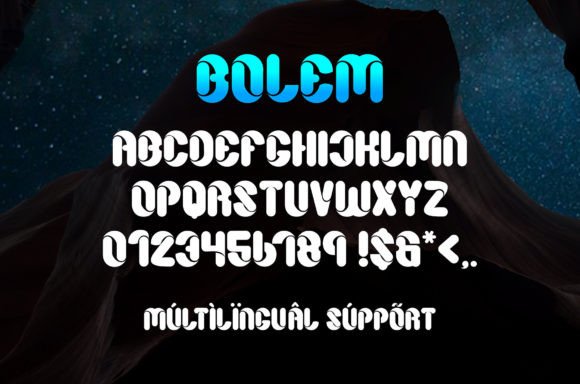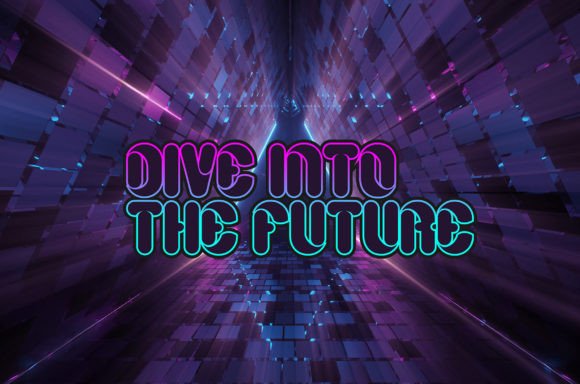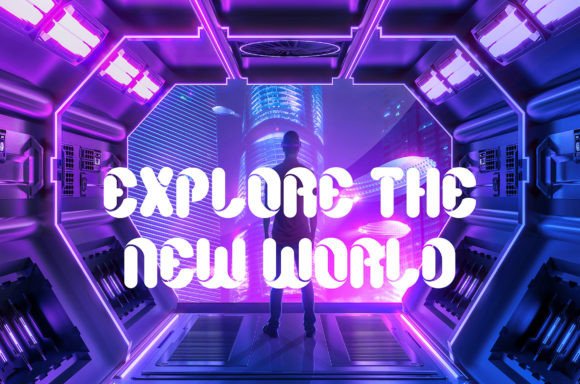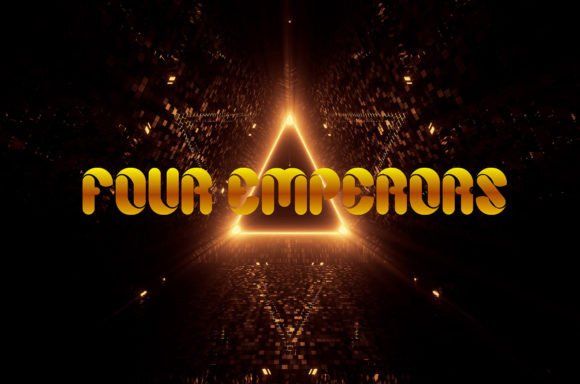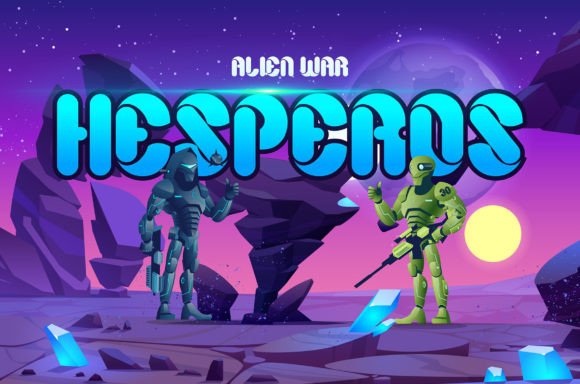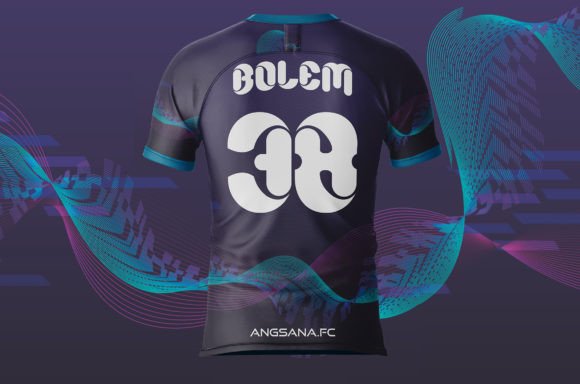
Bolem Font: Elevate Your Designs with a Modern and Futuristic Display Font
In the world of typography, fonts play a crucial role in conveying messages, expressing emotions, and creating visual identities. For designers and crafters, having access to a diverse library of high-quality fonts is essential to stay creative and produce stunning work. One such font that has been making waves in the design community is Bolem, a modern and futuristic display font that is poised to elevate any creation.
What is Bolem Font?
Bolem is a sleek and contemporary display font designed to make a statement. Its unique blend of modernity and futurism makes it an excellent addition to any font library. With its clean lines, geometric shapes, and precision-crafted letterforms, Bolem exudes a sense of innovation and sophistication.
Key Features of Bolem Font
- Modern and Futuristic Design: Bolem’s design is inspired by the latest trends in technology and digital media, making it perfect for projects that require a cutting-edge look.
- High Versatility: This font is suitable for a wide range of applications, from branding and advertising to packaging and digital media.
- Excellent Legibility: Bolem’s clear and precise letterforms ensure that your message is conveyed with clarity, even at small sizes.
- Unique Character Set: The font includes a range of characters, symbols, and ligatures, giving you the flexibility to create complex and visually appealing designs.
Who Can Benefit from Bolem Font?
Bolem is an excellent choice for a variety of designers and crafters, including:
- Graphic Designers: Bolem is perfect for creating stunning visual identities, logos, and branding materials.
- Digital Artists: This font is ideal for creating futuristic and modern digital art, from concept art to finished pieces.
- Crafters and Makers: Bolem can add a touch of modernity and sophistication to handmade crafts, such as jewelry, textiles, and paper crafts.
- Web Designers and Developers: This font is optimized for digital use, making it an excellent choice for web design, UI/UX, and mobile app development.
How to Use Bolem Font Effectively
To get the most out of Bolem, consider the following tips:
- Use it as a Headline Font: Bolem is designed to grab attention, making it perfect for headlines, titles, and captions.
- Experiment with Colors and Textures: The font’s modern design looks great with bold colors and textures, so don’t be afraid to experiment.
- Pair it with Other Fonts: Bolem can be paired with a range of fonts to create interesting and dynamic typography.
In conclusion, Bolem is a modern and futuristic display font that is sure to elevate any design or crafting project. Its unique blend of style, versatility, and legibility makes it an excellent addition to any font library. Whether you’re a graphic designer, digital artist, crafter, or web developer, Bolem is a must-have font that will help you create stunning and professional-looking work.